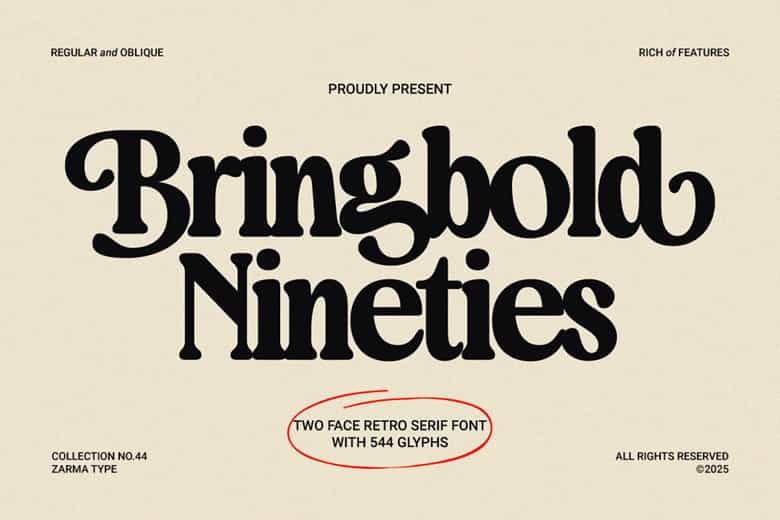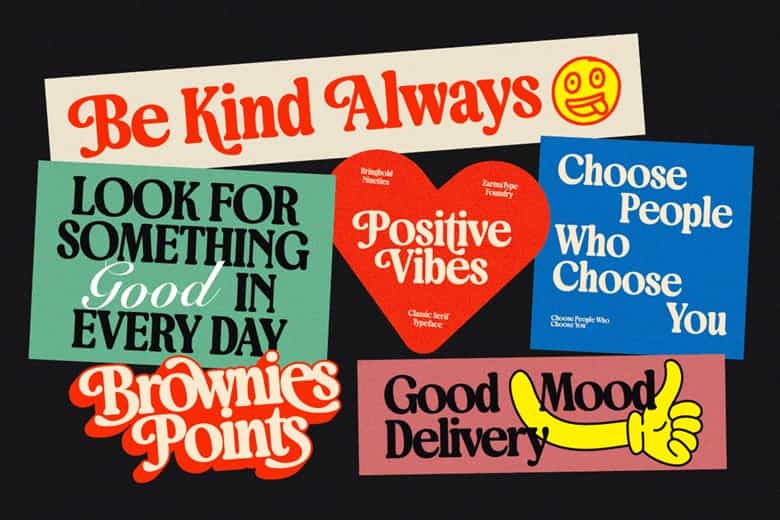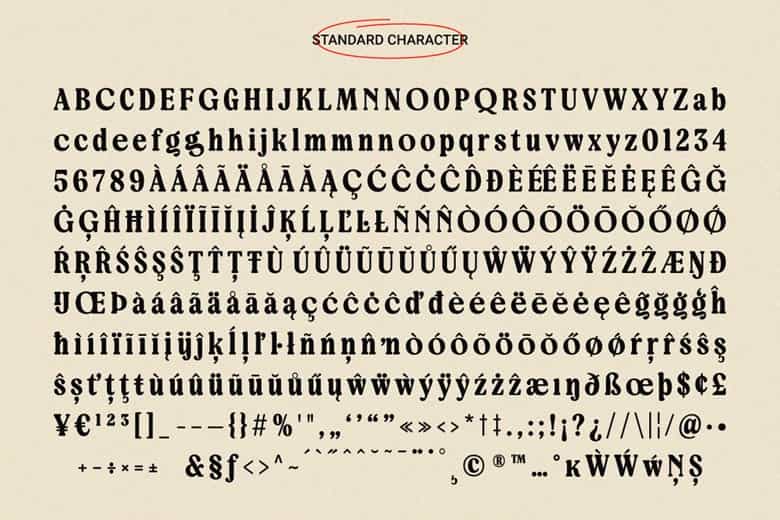
This serif font type is called Bringbold Nineties and they suit perfectly the spirit of the Nineties in relation to razor-like font shapes but with a contemporary touch. Designed and developed with elegant thick and/thin lines, combined with clean and sharp lines and the old school serif typeface, this font type makes it appear both classic and new and quite legible.